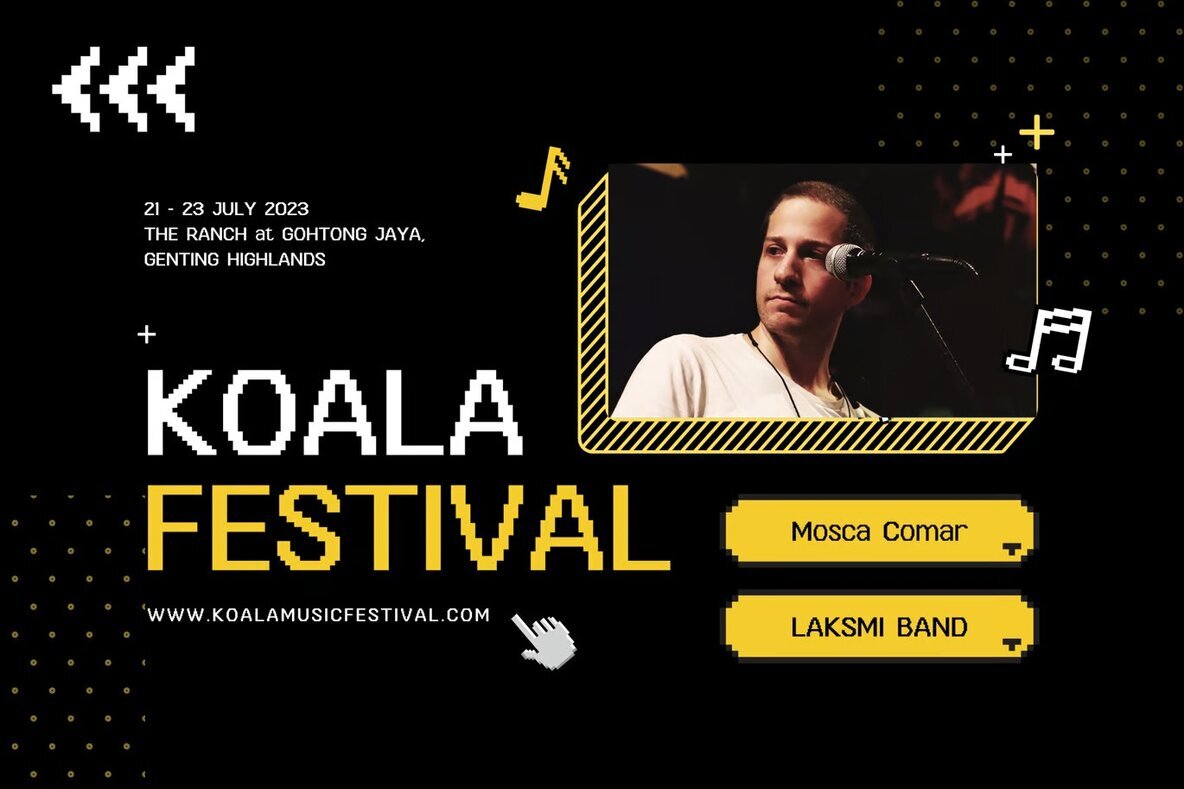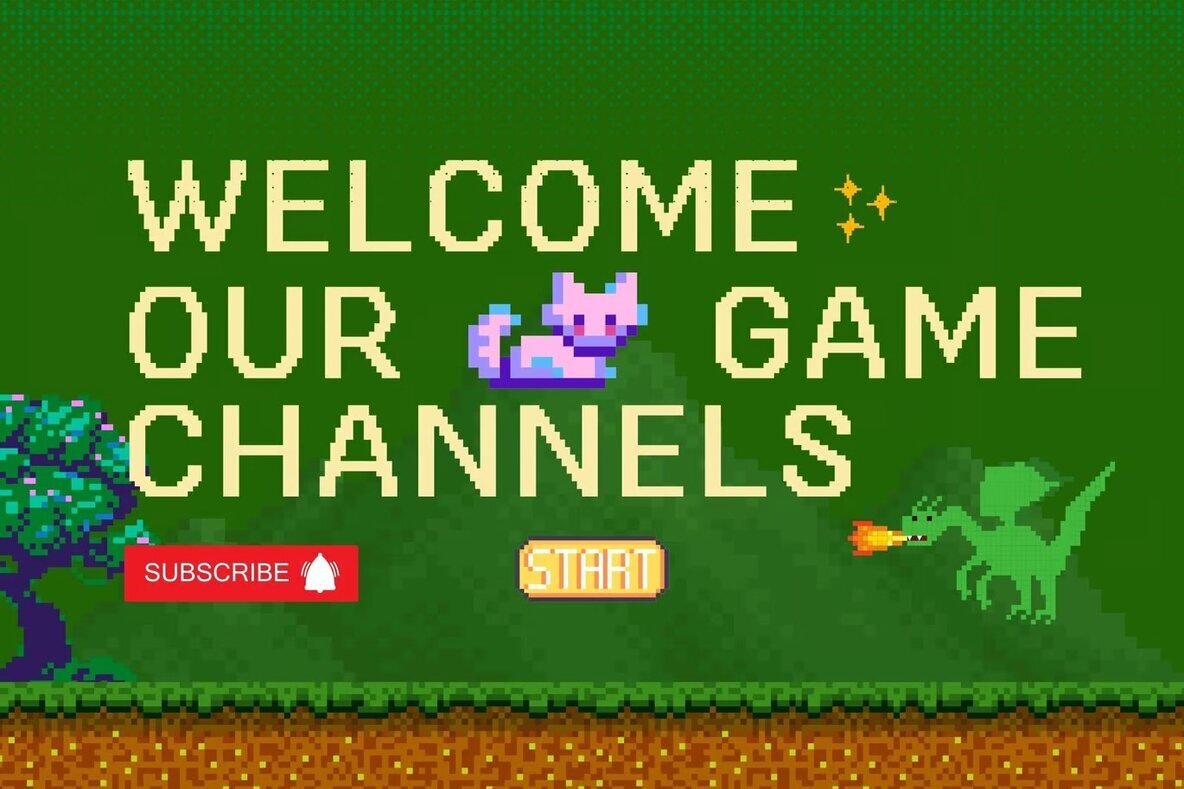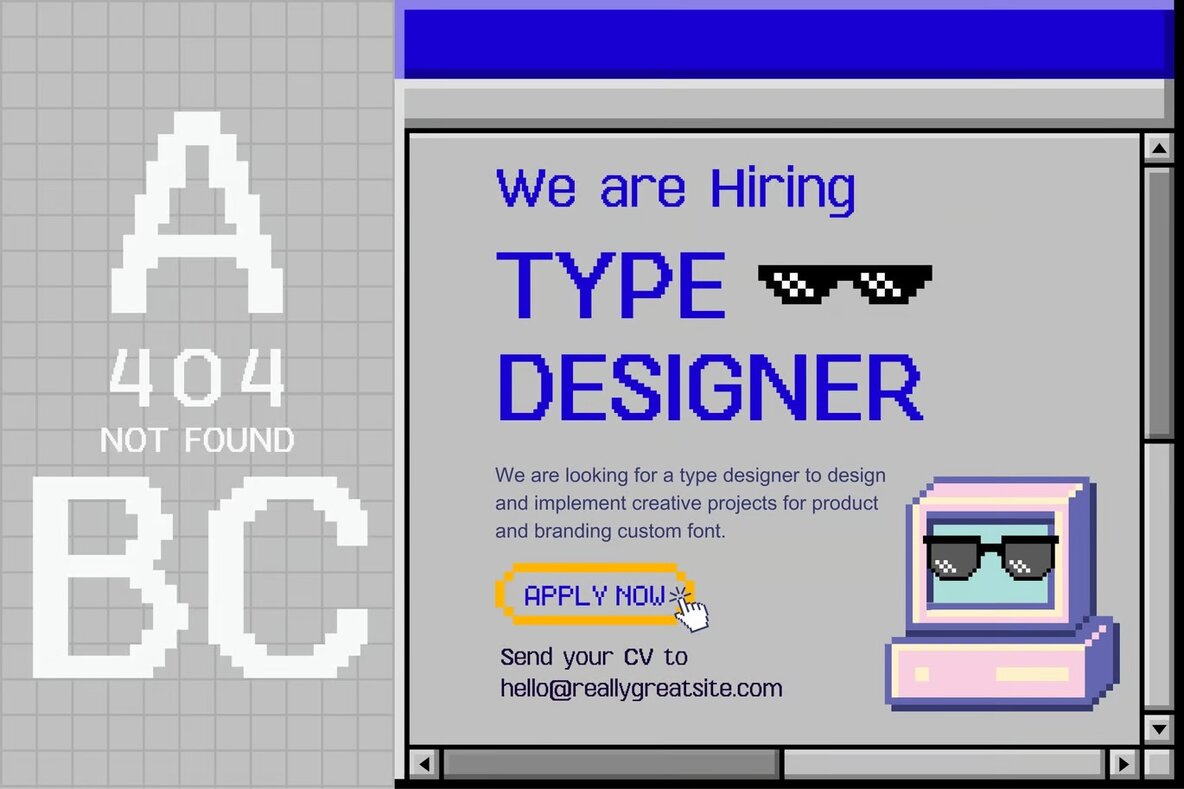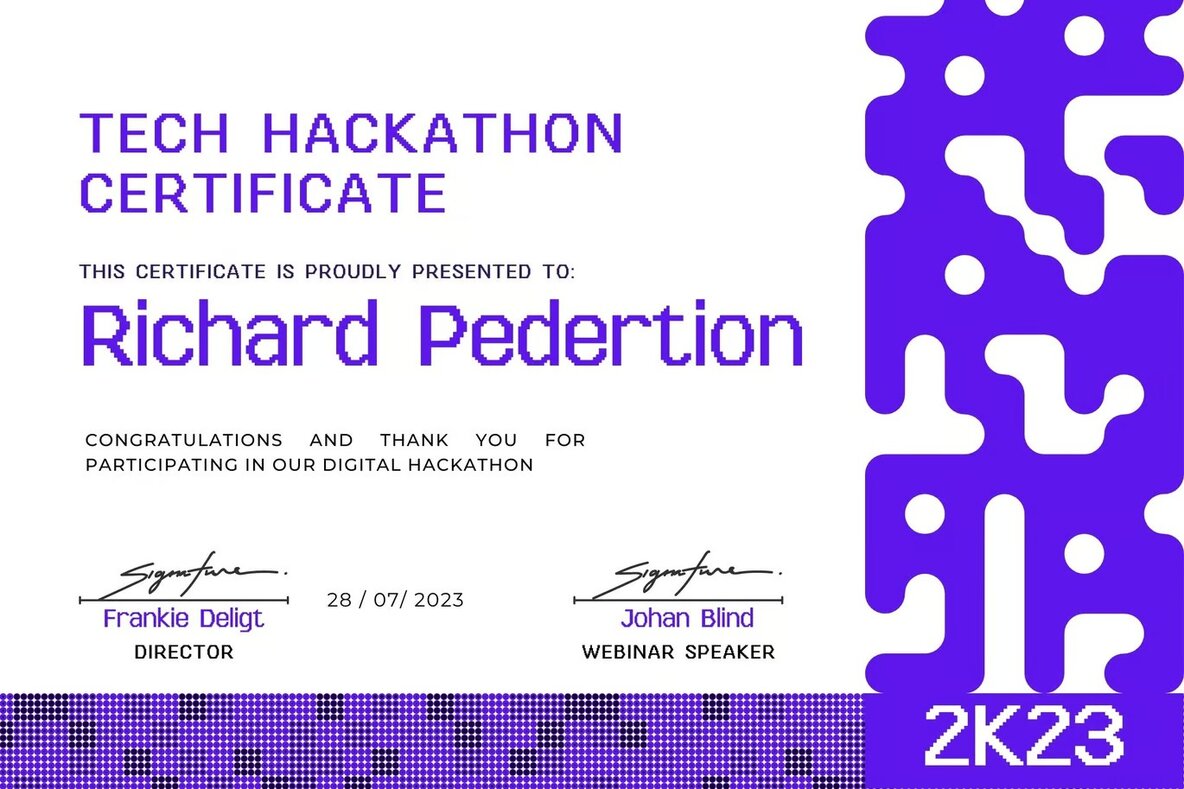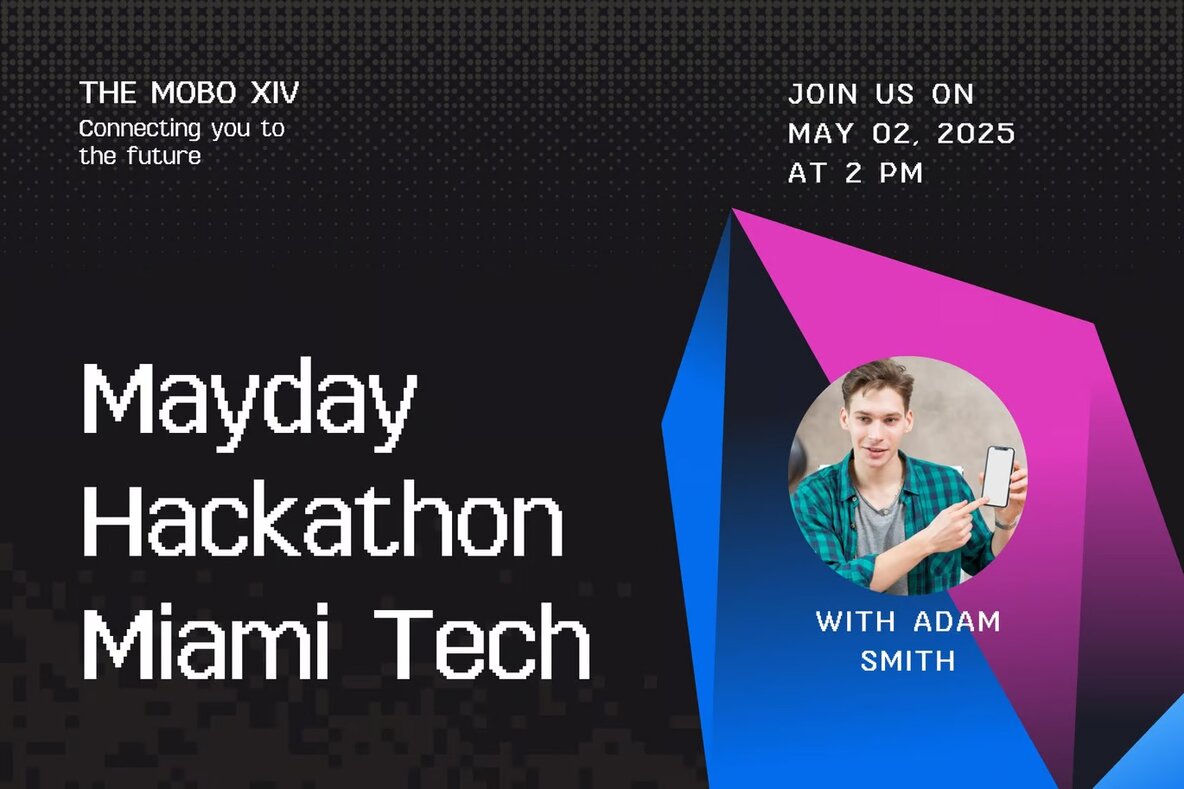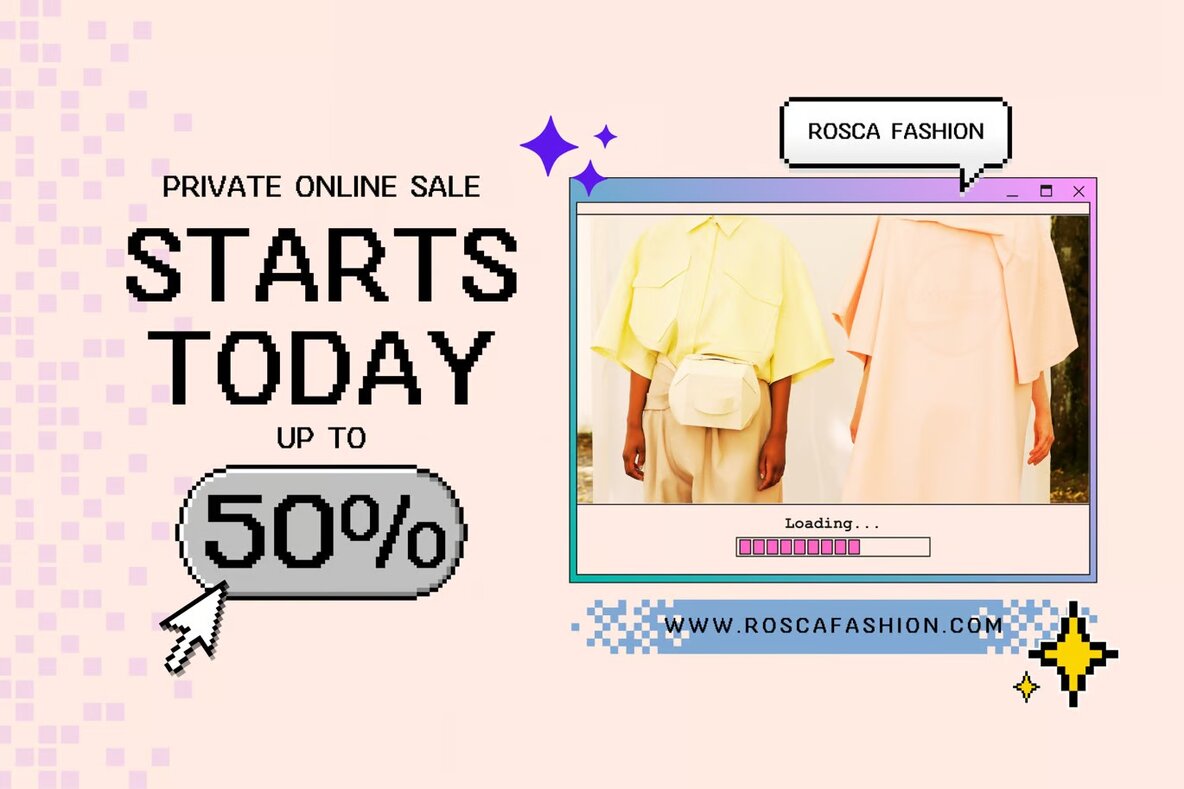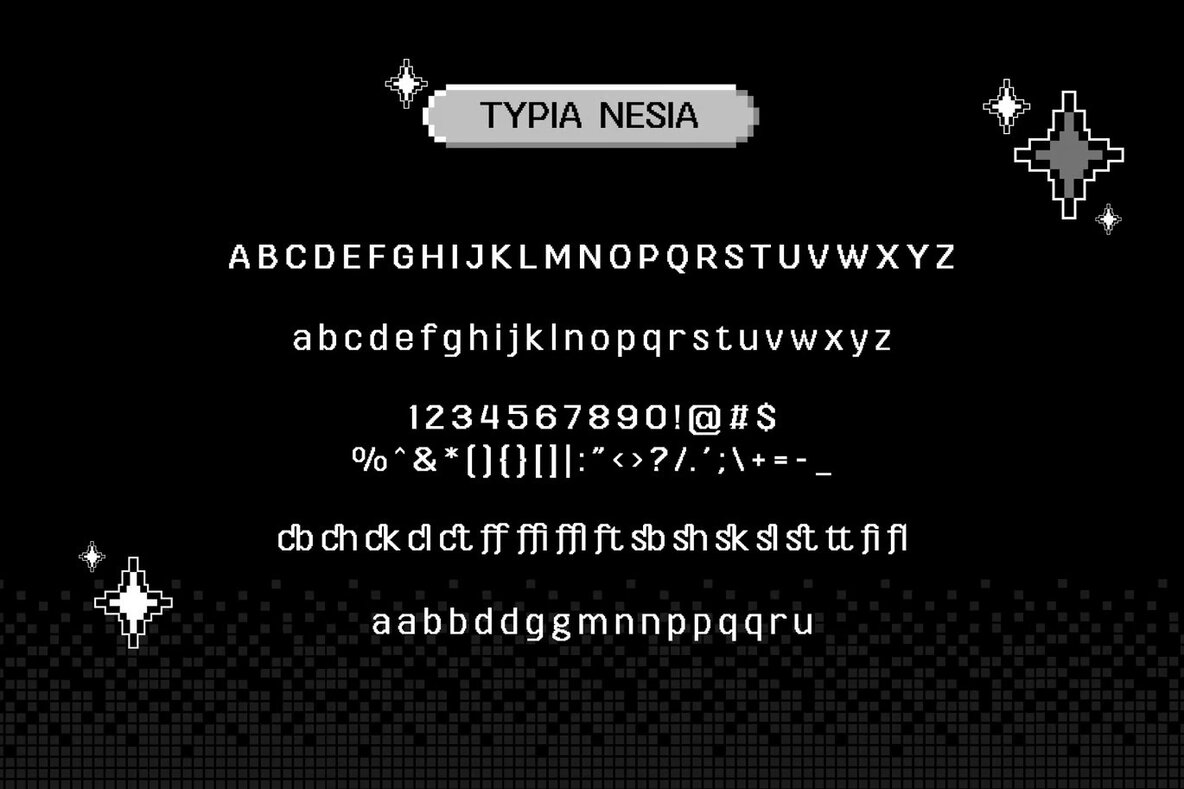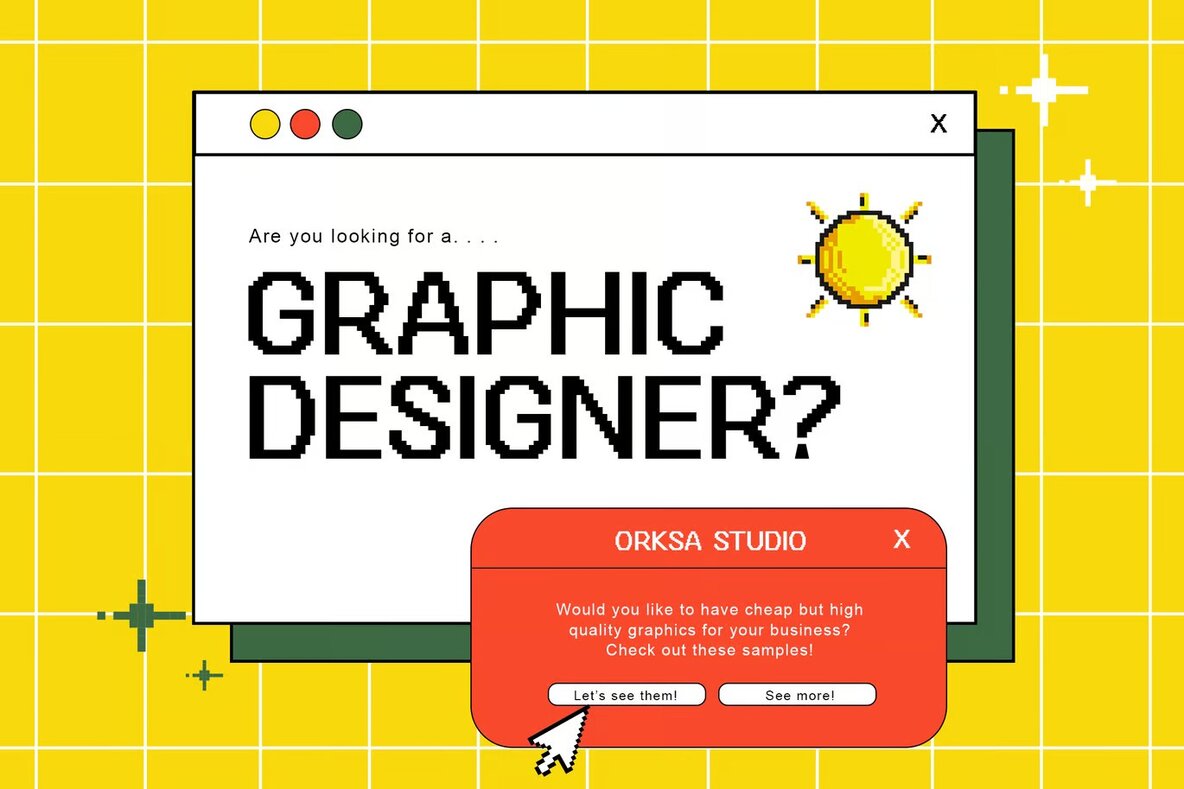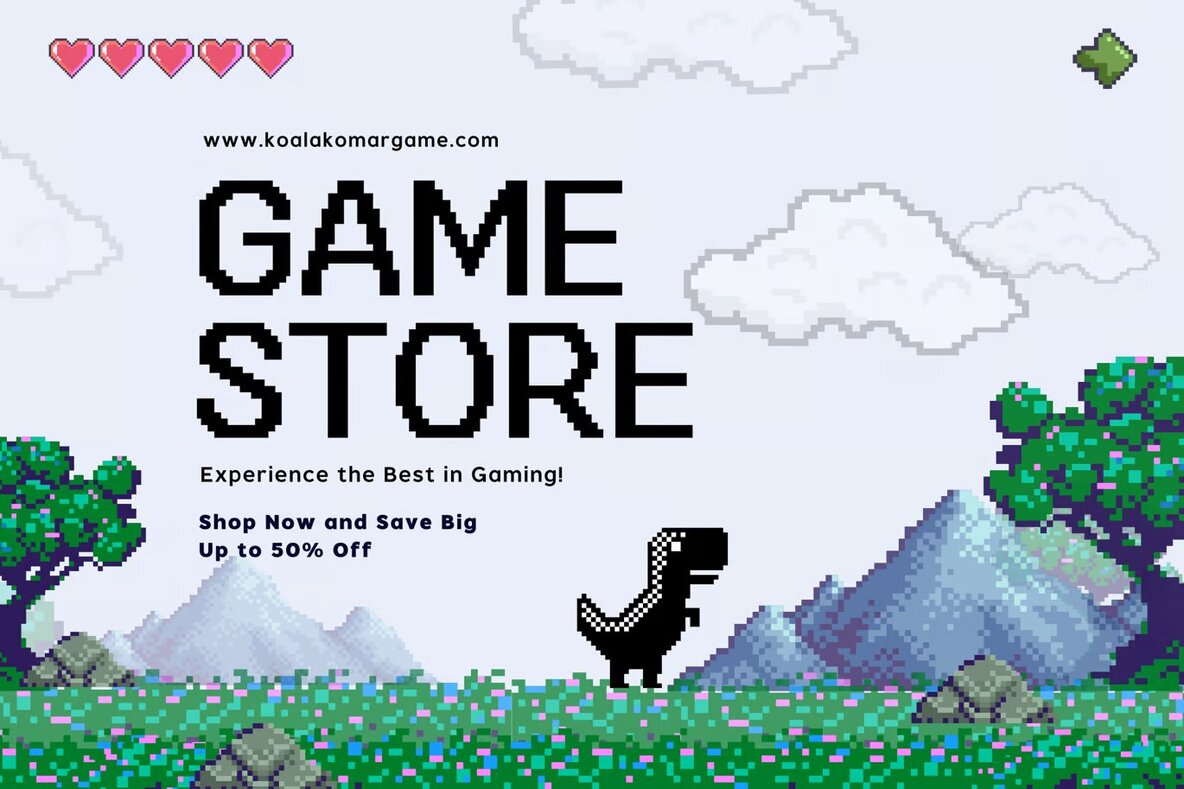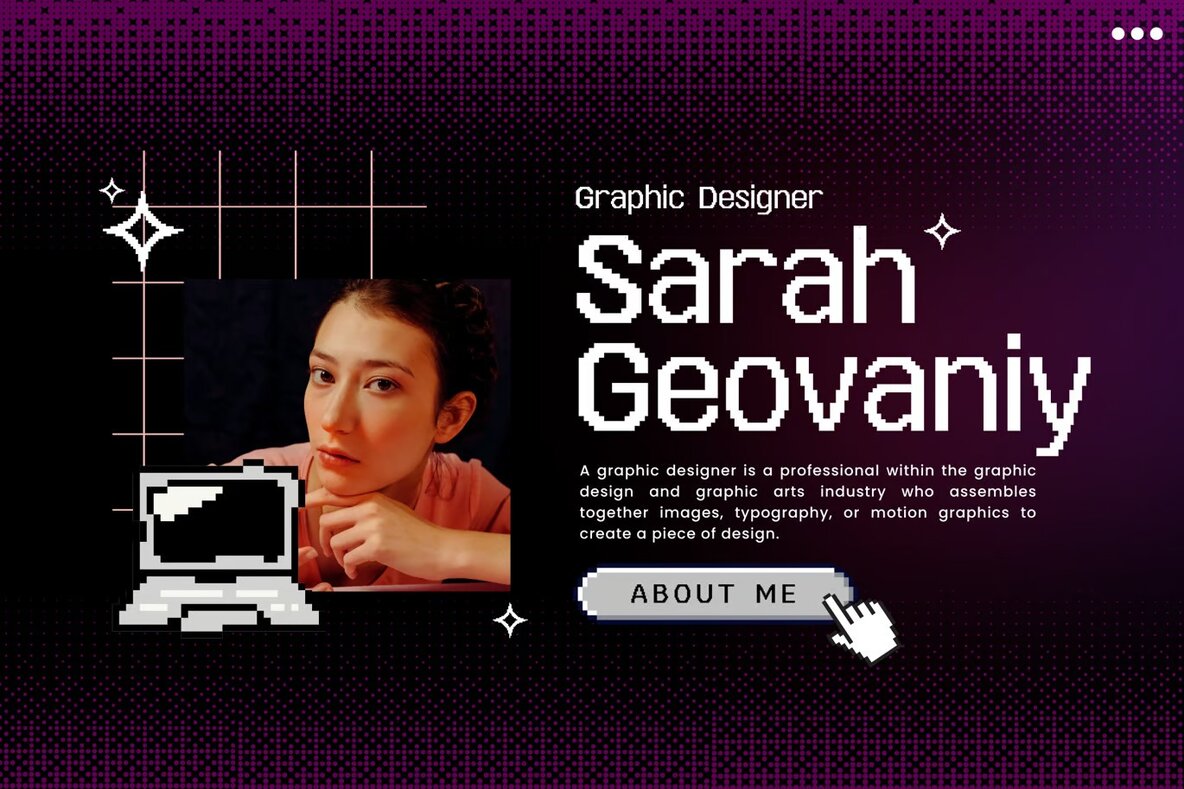
Bugvirus Font
Bugvirus Regular
Bugvirus is a pixel-style font that captures the essence of retro gaming and digital technology. This font is designed to evoke a sense of nostalgia and bring back memories of classic video games. With its pixelated design, Bugvirus is perfect for applications in the gaming industry, digital media, and technology-focused projects. Its unique features include crisp edges, blocky shapes, and a minimalist aesthetic, allowing it to seamlessly blend with various design elements. Bugvirus expertise lies in delivering an authentic pixelated experience, making it an excellent choice for startups and designers looking to incorporate a touch of retro charm into their projects.